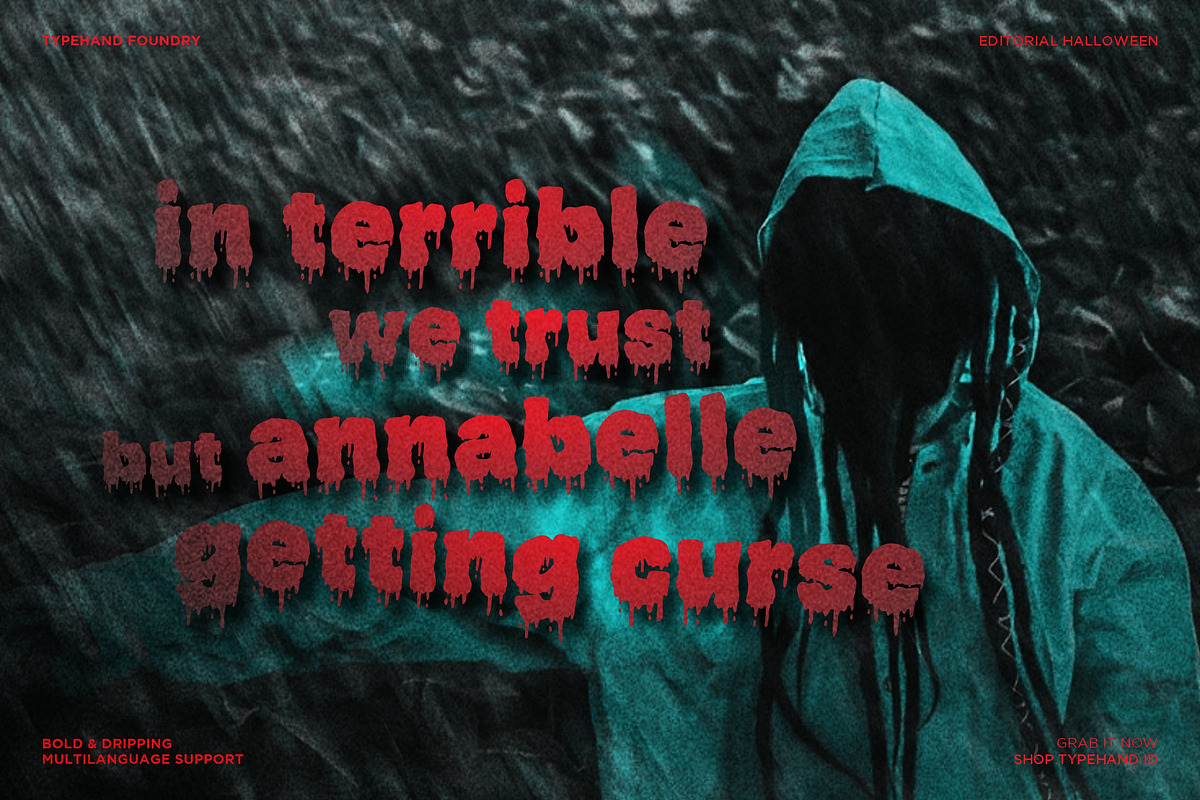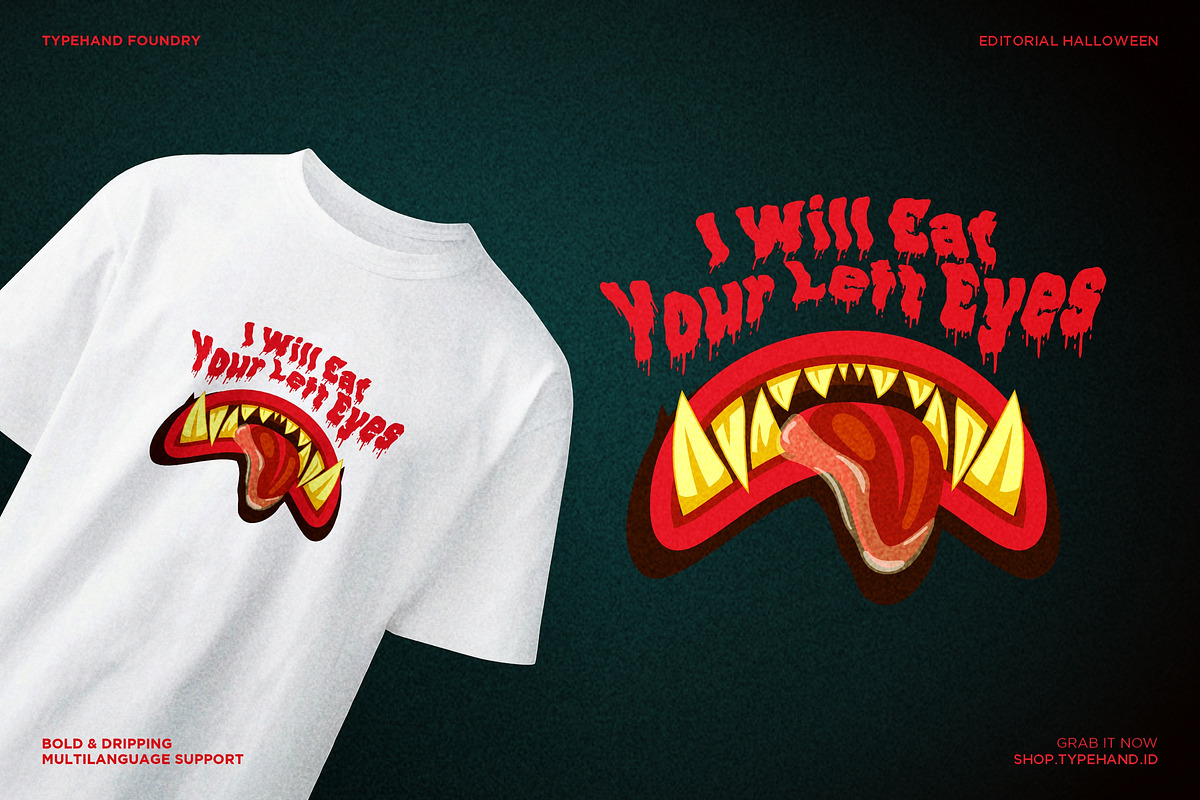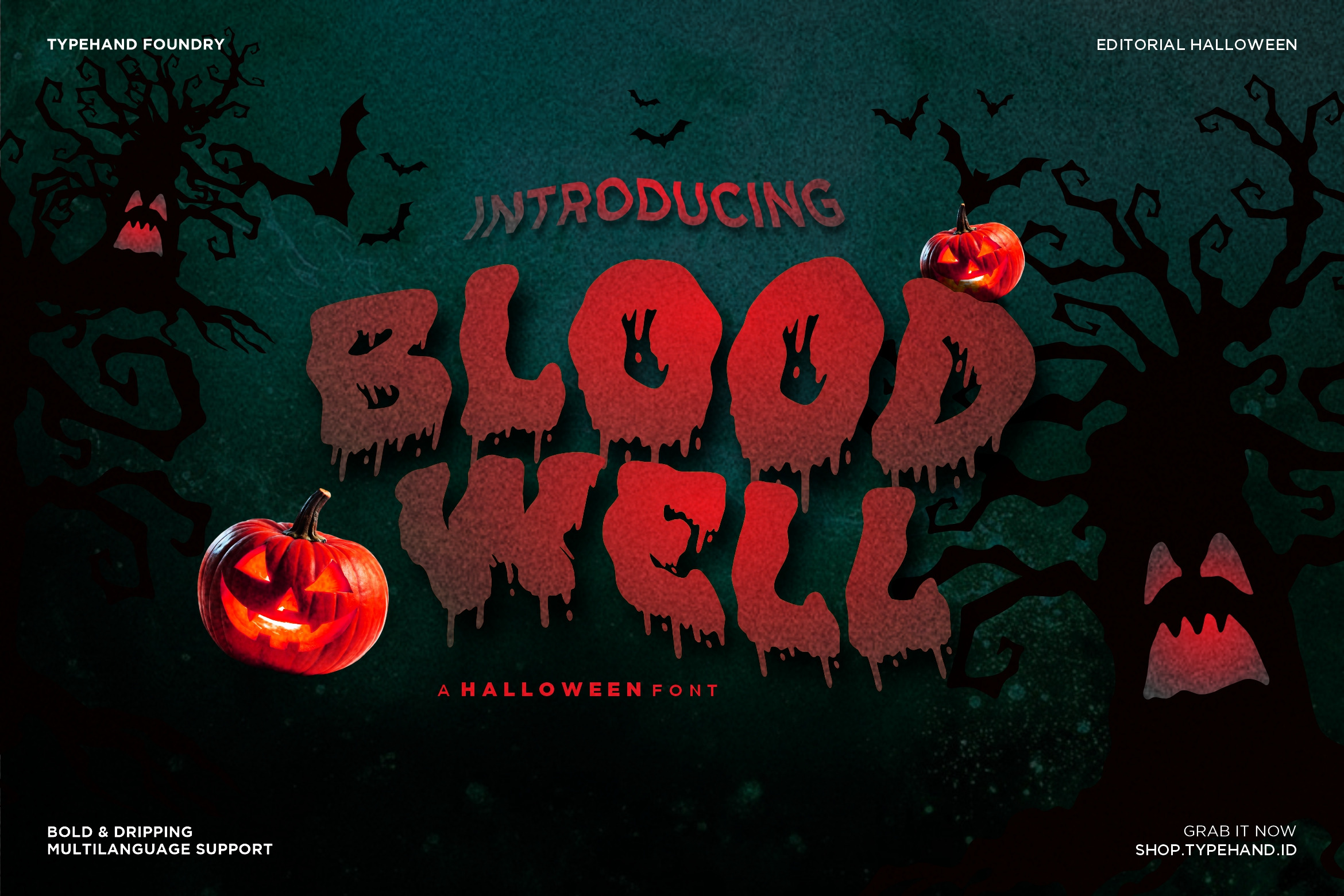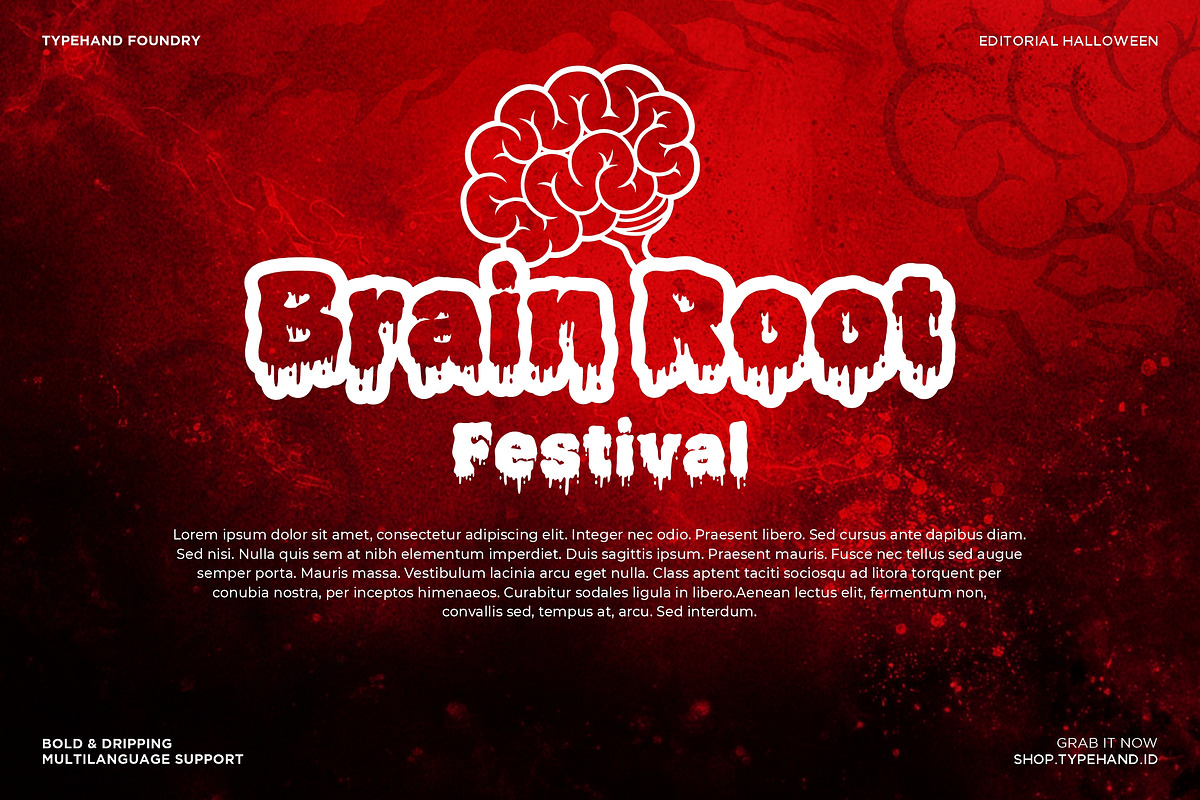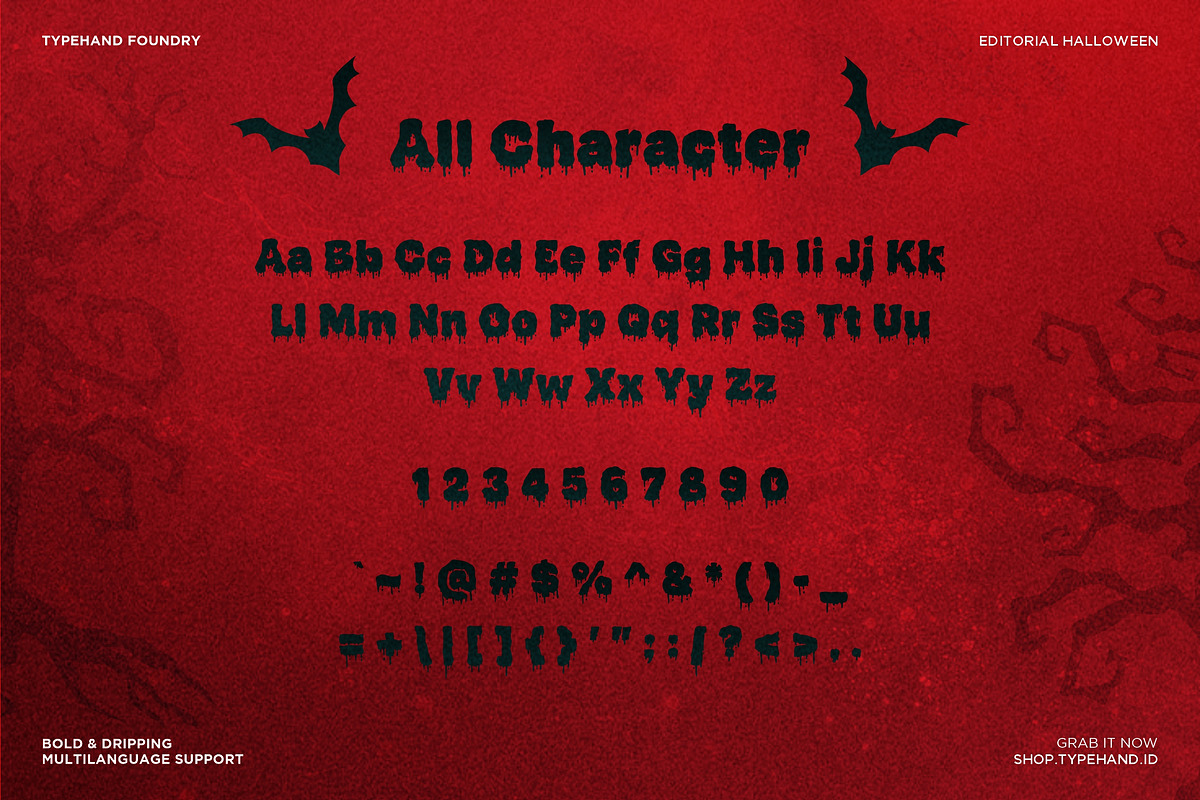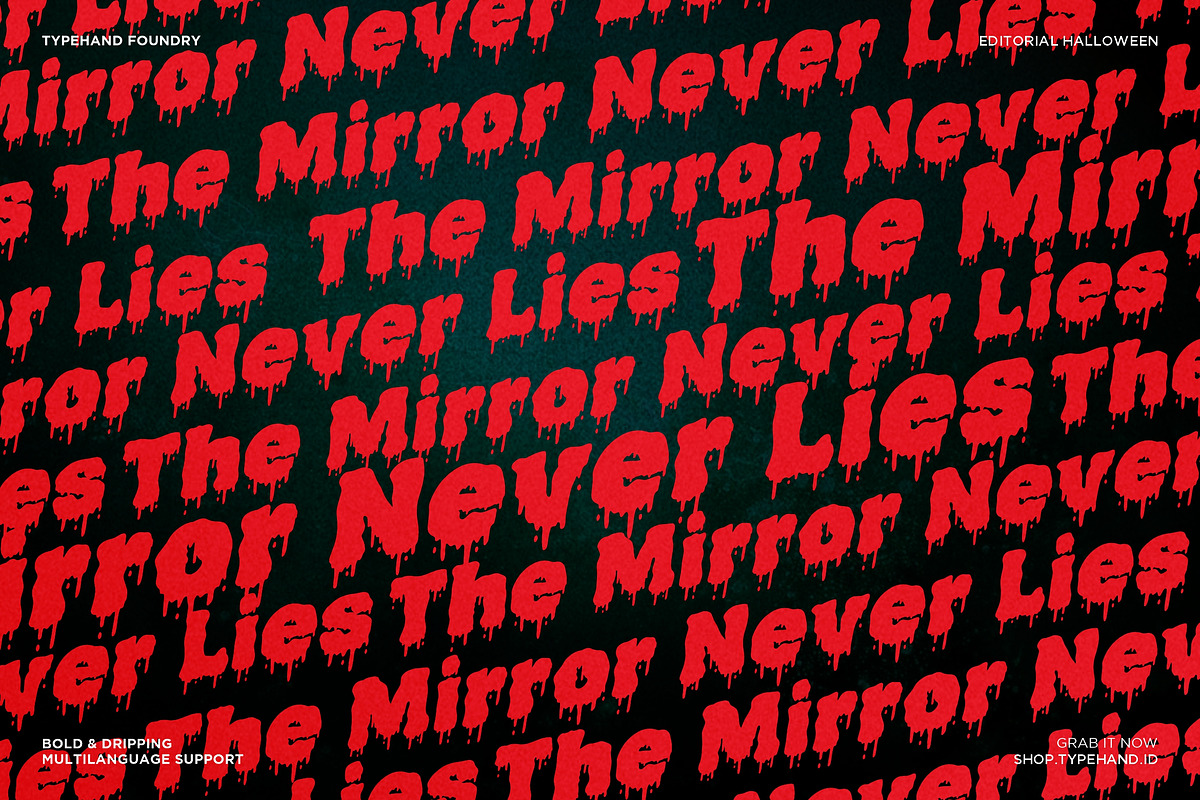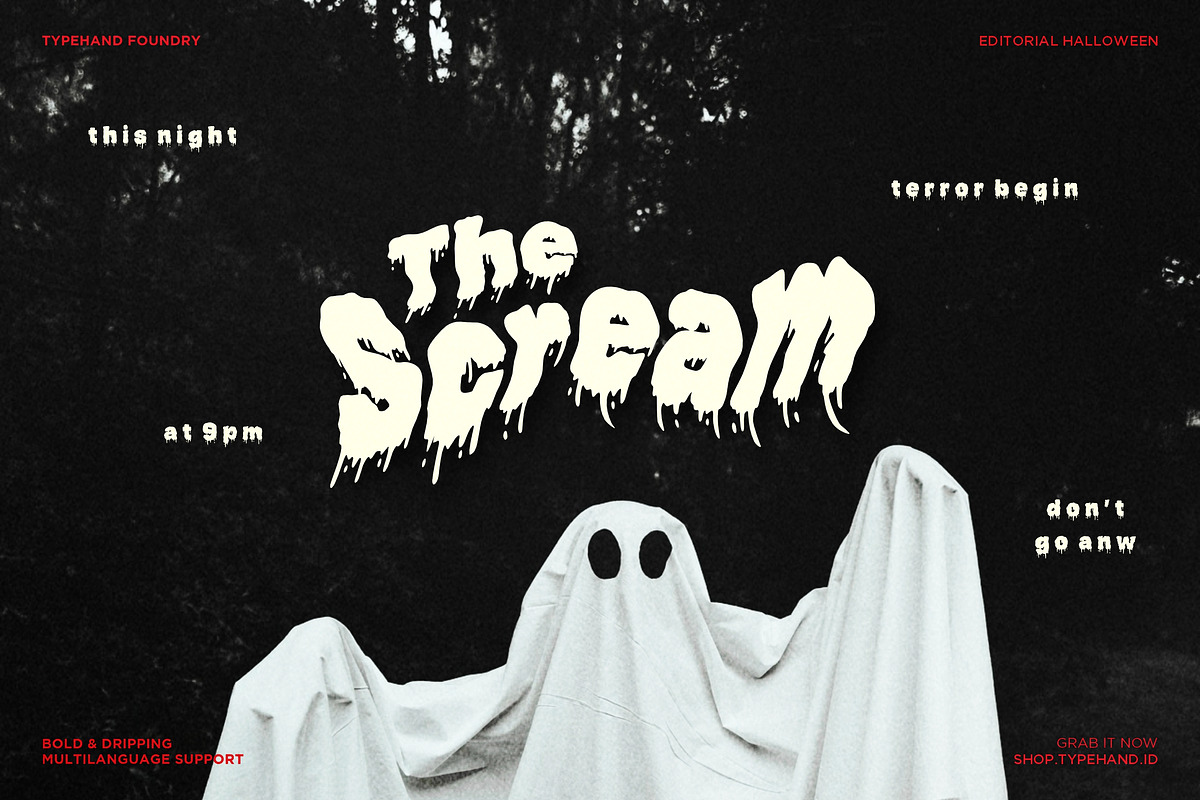
Bloodwell - Bloody Horror Font
Get ready to unleash the horror! Bloodwell is a bold and dripping Halloween display font crafted to bring spine-chilling vibes to your design projects. With its bloody ink-drop style and eerie texture, this font perfectly captures the dark essence of Halloween.
Inspired by vintage horror movie posters and haunted visuals, Bloodwelll is ideal for logos, quotes, apparel designs, invitations, and spooky-themed mockups. Its expressive look makes every word appear as if it’s written in fresh, dripping blood — bold, terrifying, and unmissable.
Bloodwell also comes packed with Ligatures, Stylistic Alternates, and Multilingual Support, giving you the creative freedom to customize every detail. Available in OTF and WOFF formats, making it easy to use across both print and digital projects.